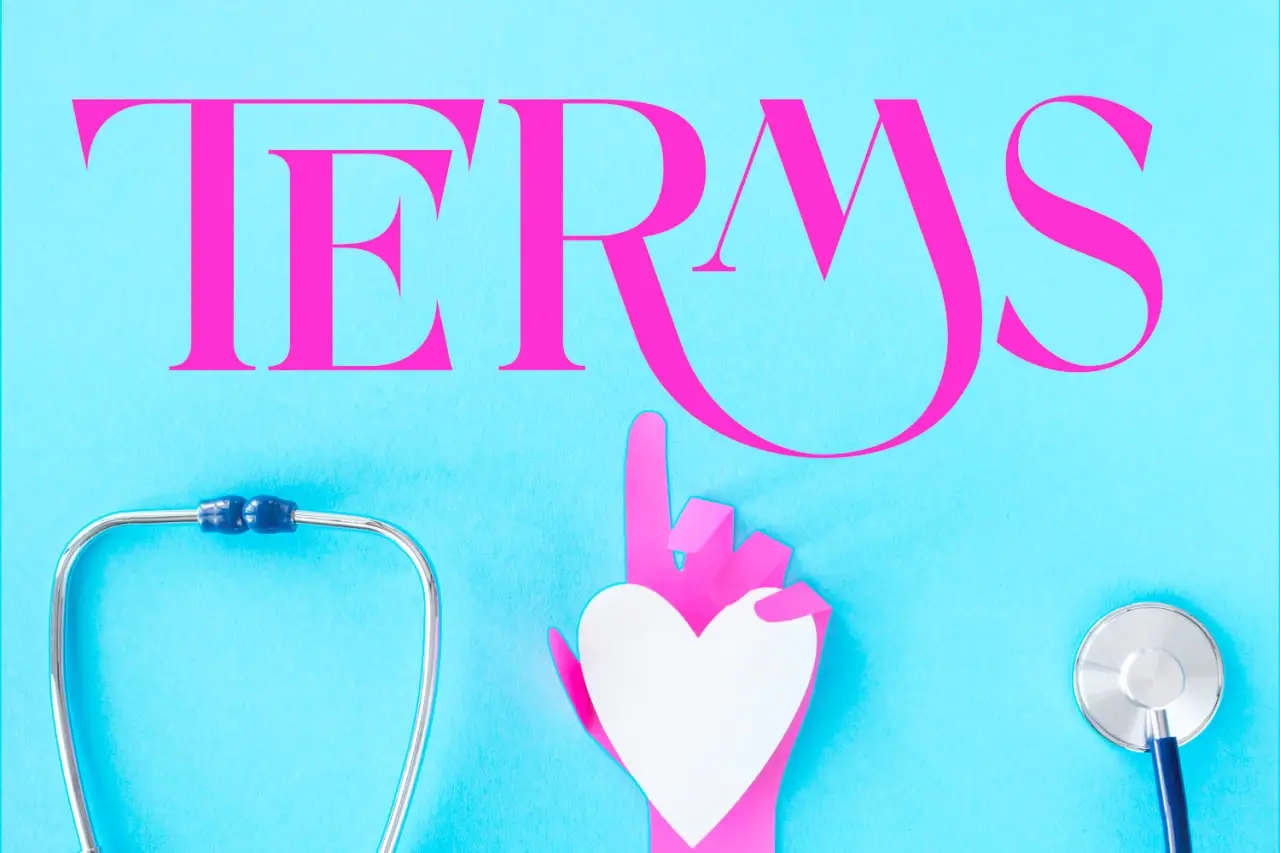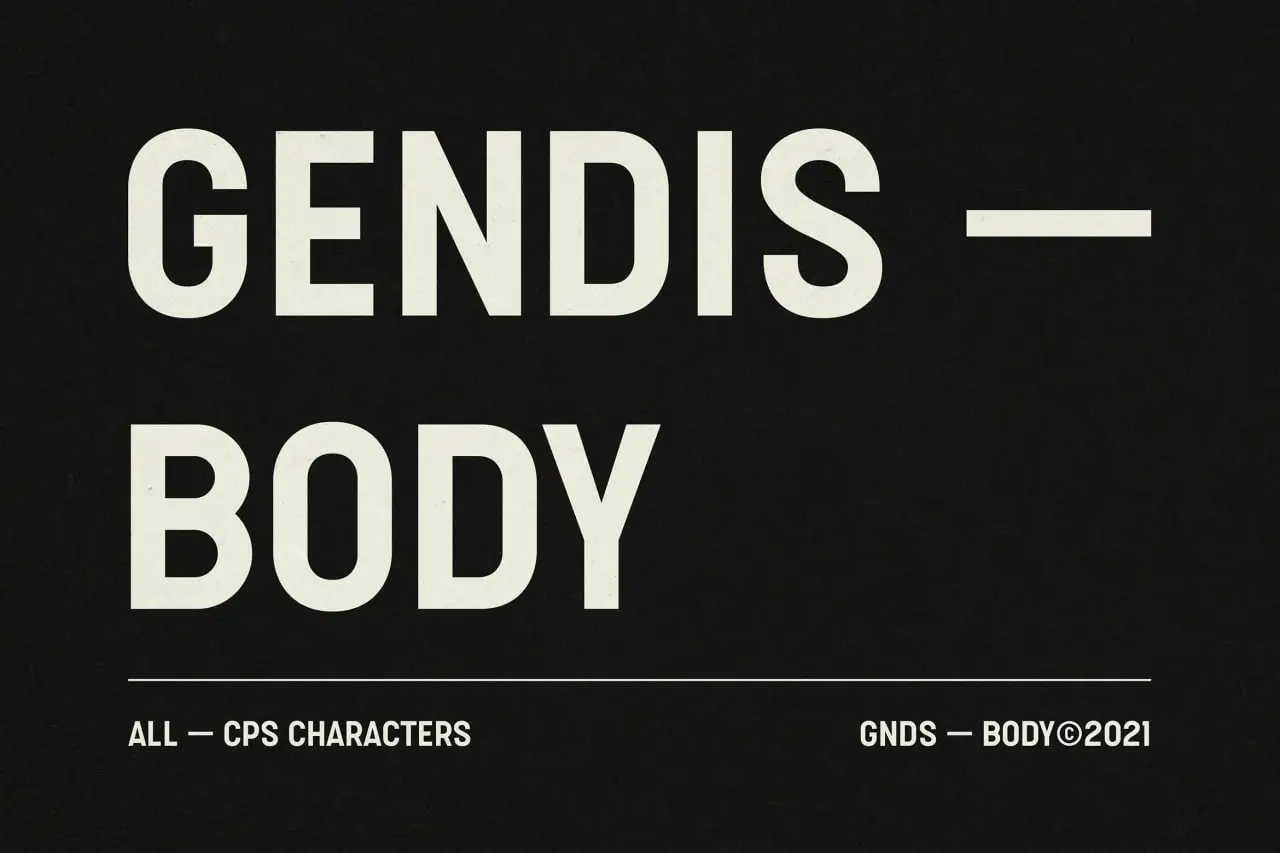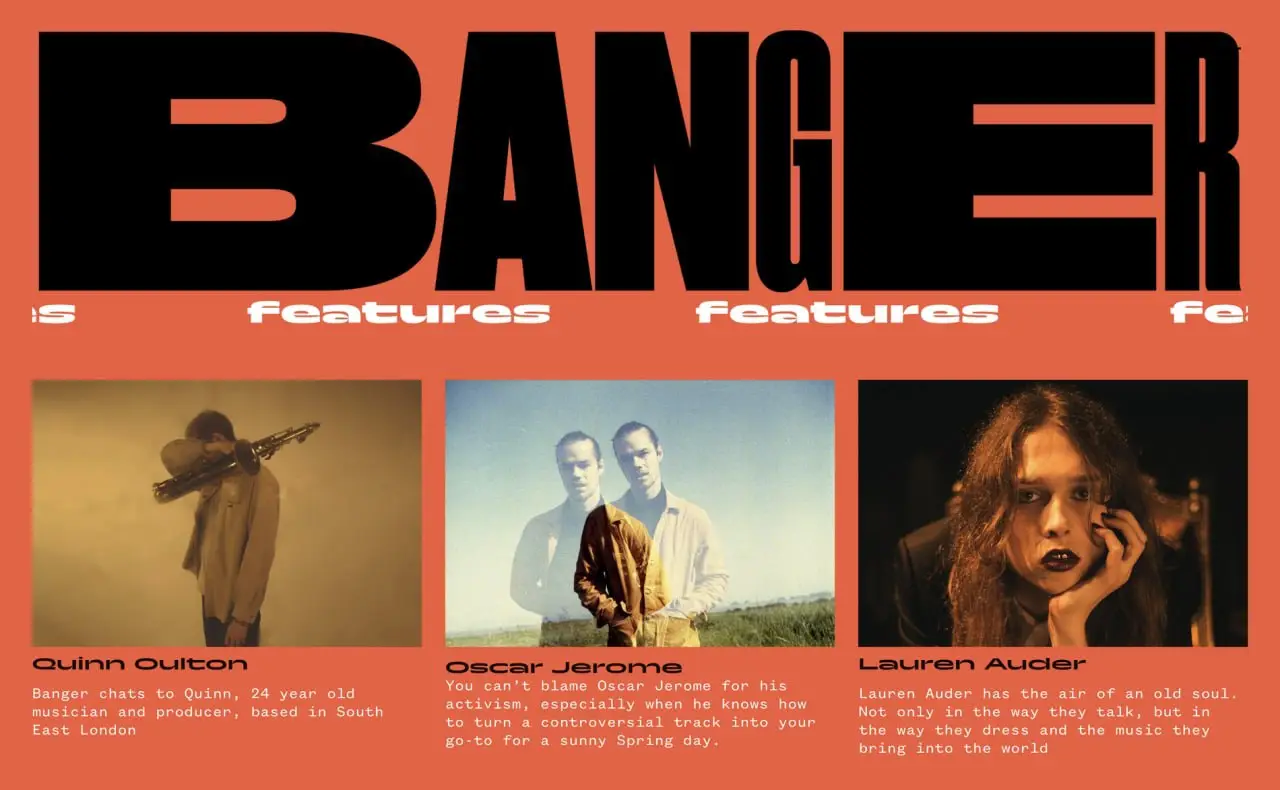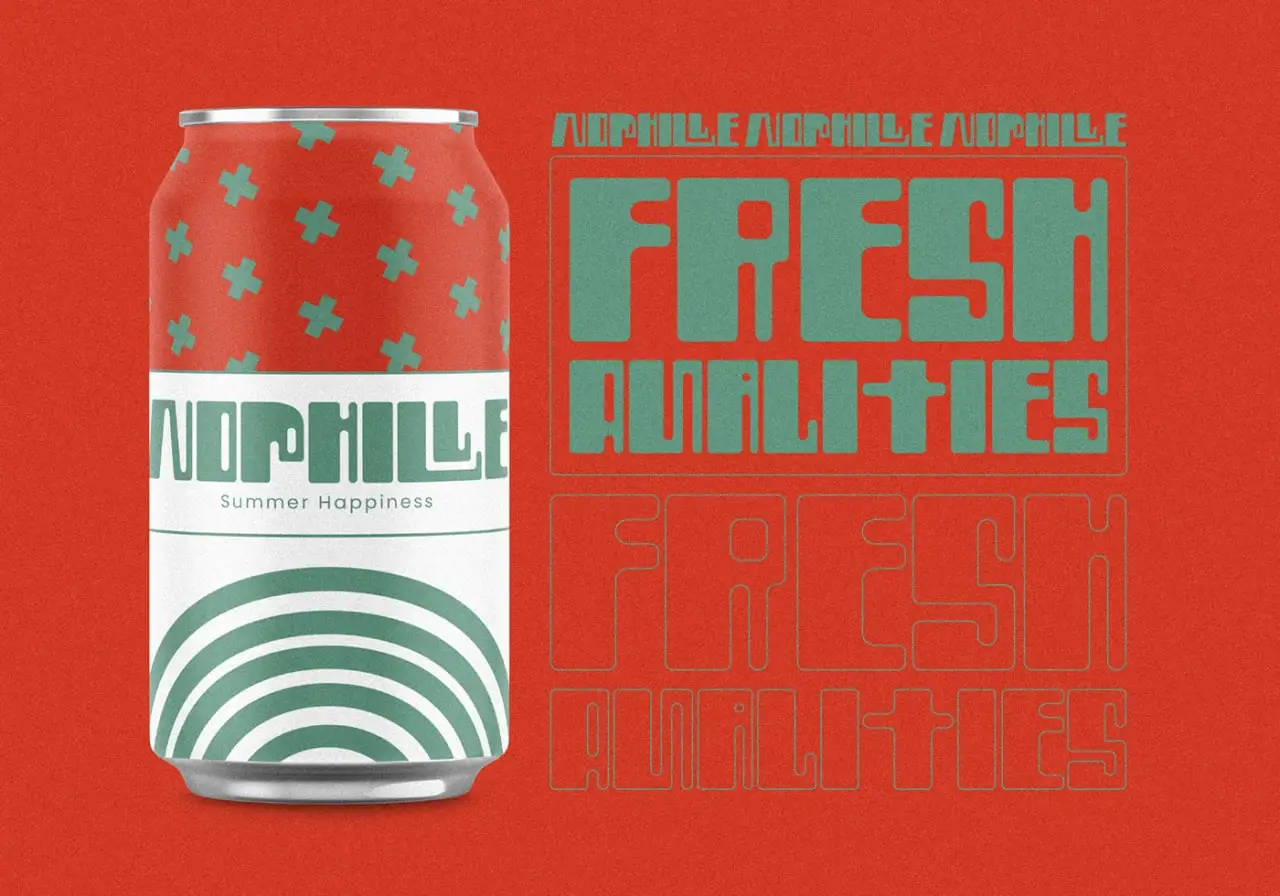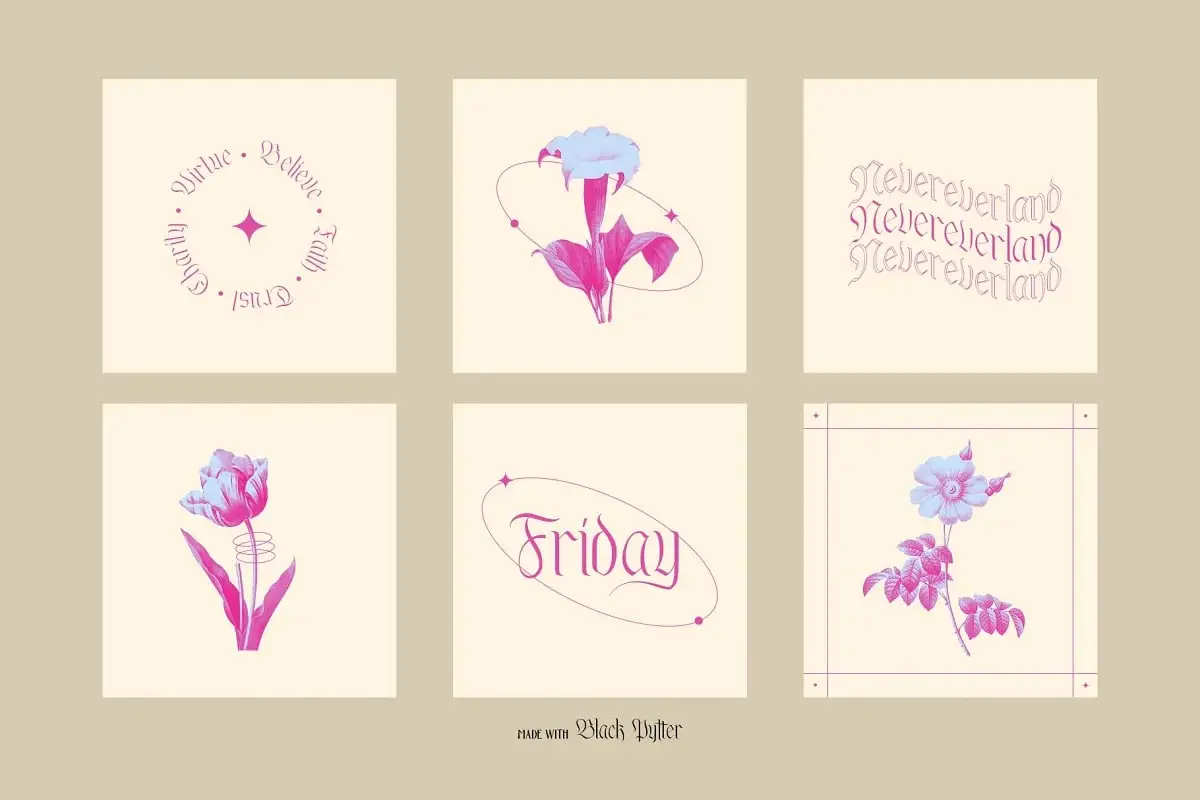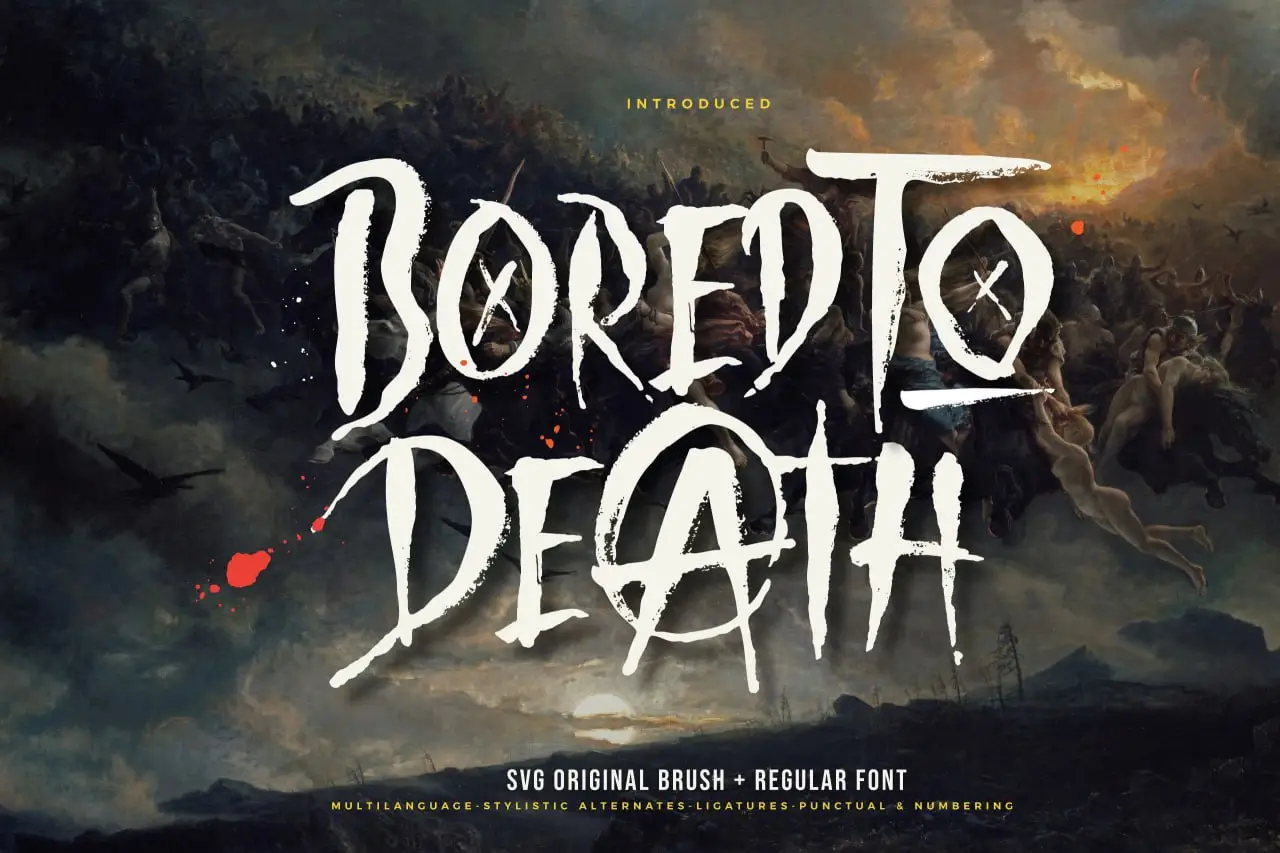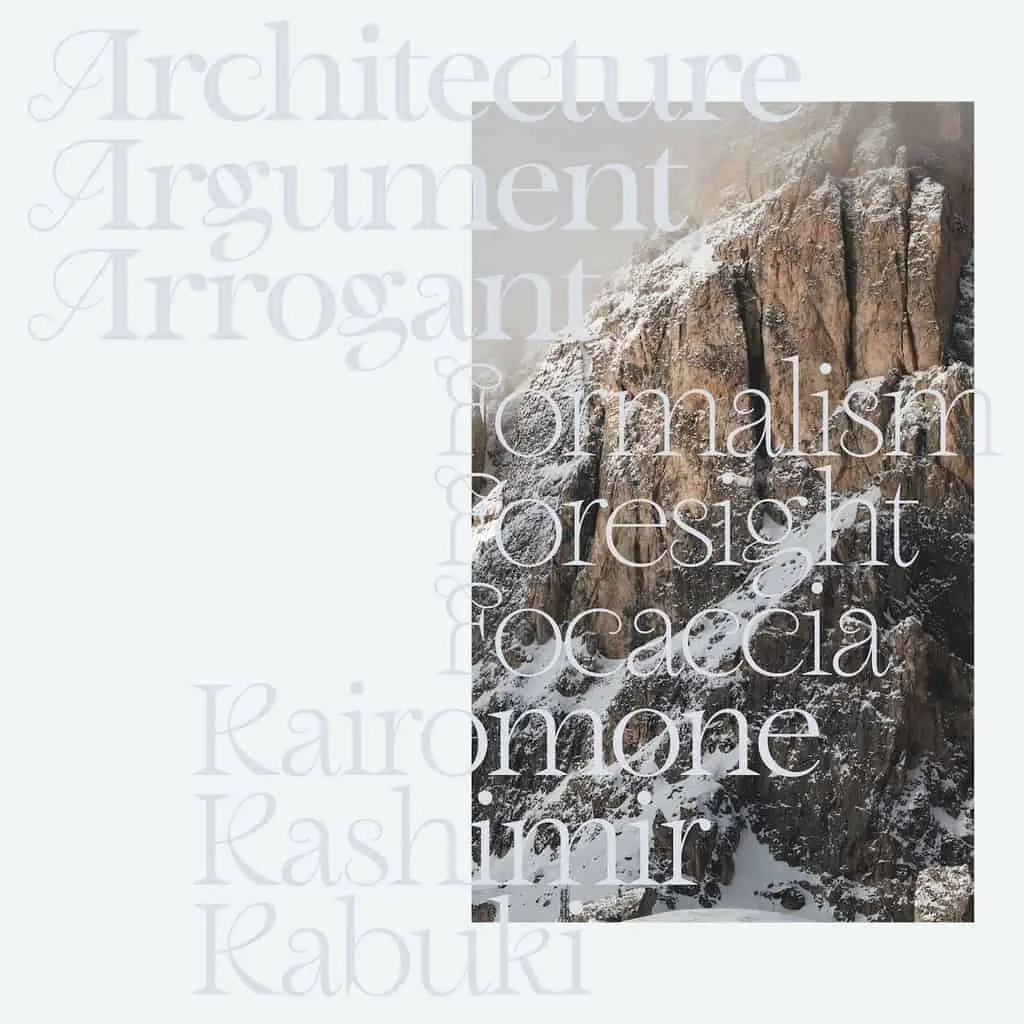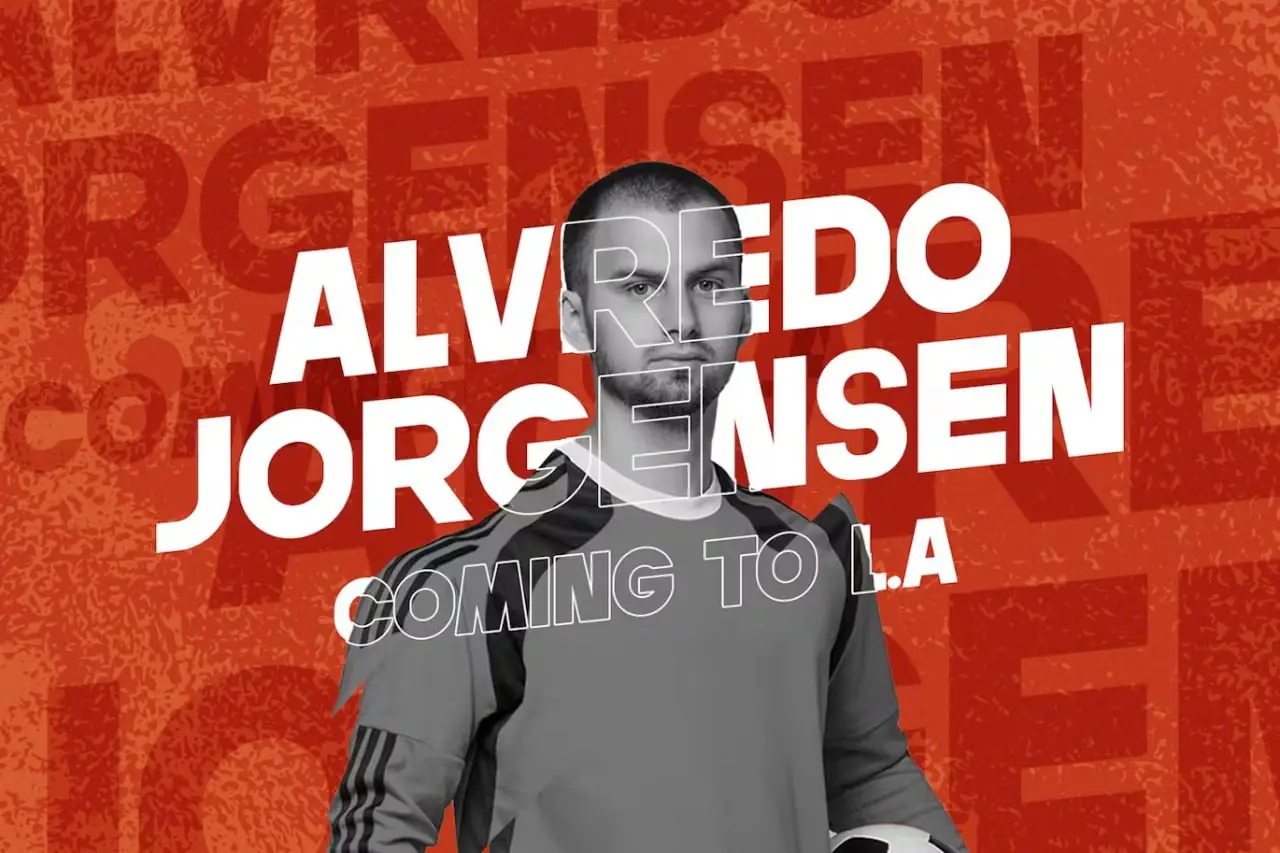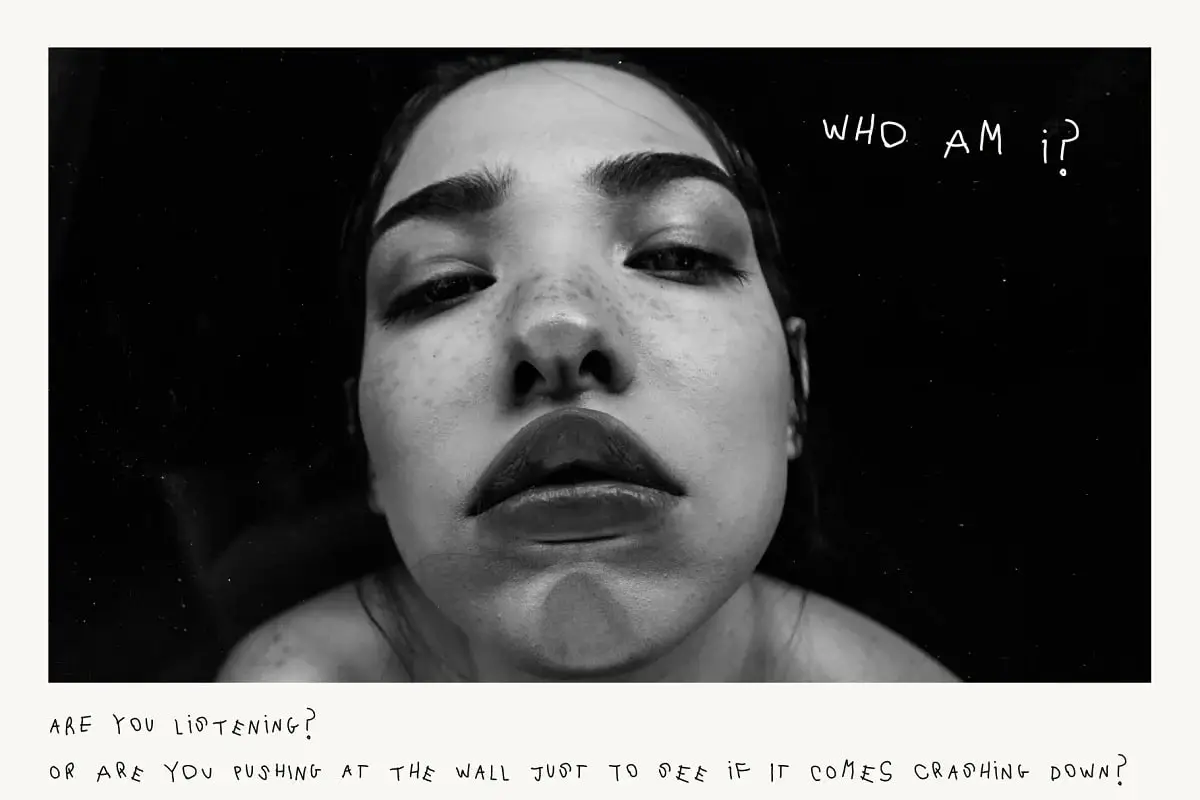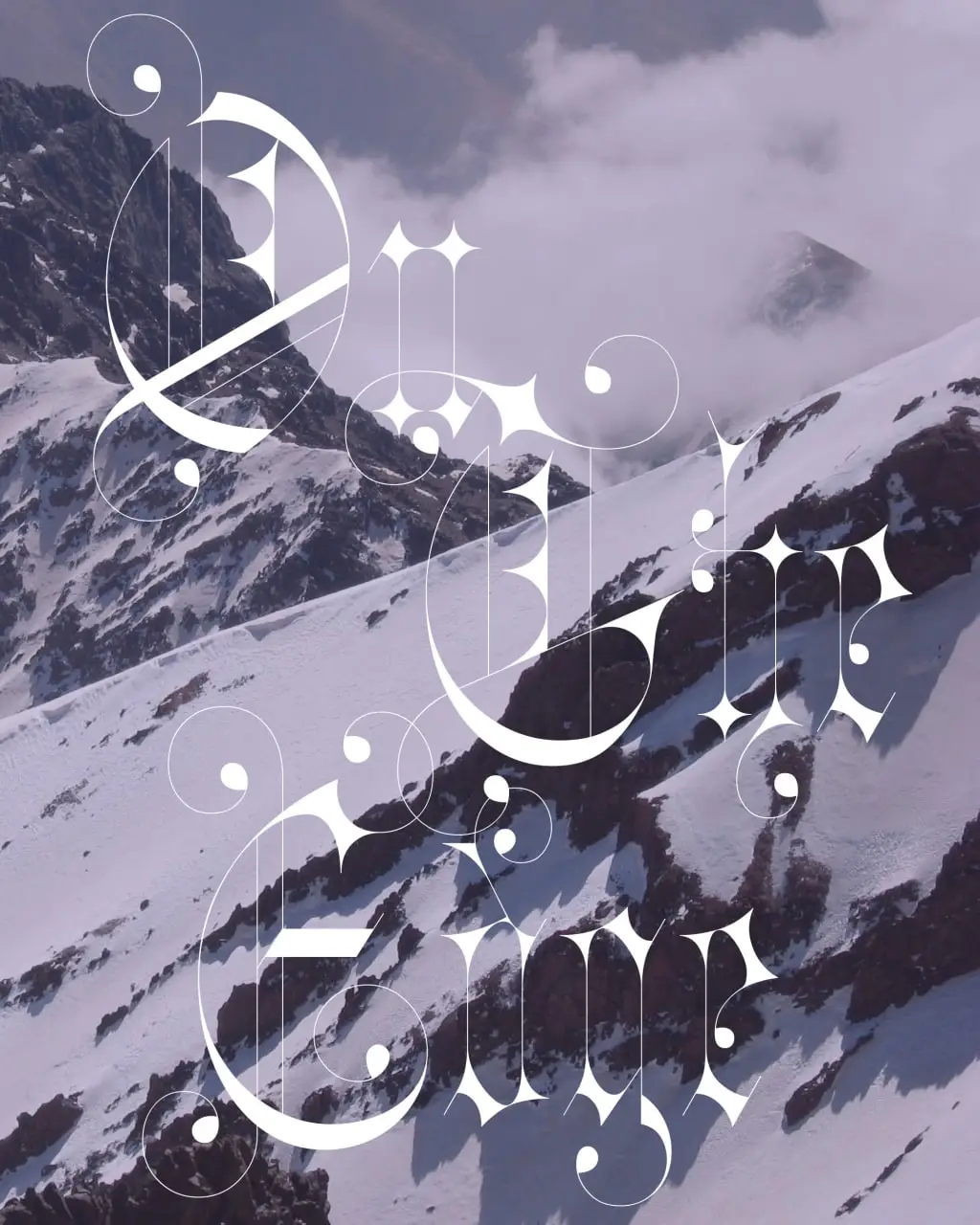
From quirky display fonts to ultra-modern typefaces and stunning design assets, this drop has something for everyone. Whether you’re crafting a killer logo, designing a sleek website, or just sprucing up your socials, these gems will make your work pop like never before. Let’s explore the top 20 picks that are about to revolutionize your design workflow! 🔥
Ephidona
Ephidona is your ultimate Swiss Army knife for creative projects! 🛠️ Whether it’s for branding, marketing, or personal art, this high-res beauty is super easy to customize and will make your visuals scream professionalism. ✨
Bro By Pavel Gridasov
Say “Bro” to your new favorite design asset! 🙌 This file is packed with high-quality details and multiple formats, making it a breeze to use on your website, social media, or even print materials. It’s the vibe your toolkit needs!
Dr-Spira Display (C) Daniel Reed
Get ready to turn heads with this bold, geometric stunner! 🧬 It’s a display font that balances sharp lines and elegant curves perfectly. Multiple weights mean you can go from heavy and dramatic to light and airy in a click. Perfect for headlines! 📰
David Jonathan Ross-Clavichord
For the lovers of vintage elegance! 🎹 This asset is like a musical masterpiece for your designs, inspired by classic clavichords. It’s high-res and dripping with historical charm—perfect for adding a touch of old-world class to modern projects. 🌿
Cactus Jack Font
Need a font that’s bold, playful, and totally on-trend? 🌵 Cactus Jack delivers with styles ranging from Light to Bold, and formats like OTF, TTF, and WOFF. It’s a desert storm of awesomeness for your branding! ☀️
Black Pytter Typeface
Make a statement that can’t be ignored! 🖤 Black Pytter is bold, modern, and full of character. It comes in multiple weights and supports snazzy uppercase and lowercase letters. Perfect for logos that demand attention.
Bouk Ra-Hanol V
This one is a visual powerhouse! 💪 Bouk Ra-Hanol V offers high-res files that are super easy to customize. It blends style and functionality seamlessly, making your workflow smoother and your designs way cooler. 🚀
Bored To Death Font By Ramandhani Nugraha-Fortunes Co
This font is anything but boring! 🕺 It’s playful, edgy, and full of personality. Perfect for display and decorative uses, it brings a unique flair to any project that needs a punch of attitude.
Bitto Font
Clean, modern, and super versatile! 🧼 Bitto offers multiple weights and both serif and sans-serif options. It’s incredibly legible at any size, making it a dream for both digital screens and print projects.
Buleten-Modern Sans Sports Font
Score big with your designs! ⚽ This sleek, modern sans-serif font is tailor-made for sports branding, jerseys, and athletic merchandise. It’s fast, clean, and commands attention.
Boogy Brut By © Bureau Brut & Julien Priez [Otfx 9]
This one is pure fun and attitude! 🕺 Boogy Brut is bold, playful, and impossible to ignore. Designed by Bureau Brut and Julien Priez, it’s perfect for quirky logos and standout branding.
Bigilla Font
Bigilla is the life of the party! 🎉 With unique curves and multiple weights, this stylish modern font is ideal for everything from branding to digital media. It comes with both uppercase and lowercase, so the creative possibilities are endless.
Bubble Font Orvil By That That Creative
Get bubbly with it! 🫧 This whimsical typeface by That That Creative has the cutest rounded edges. It’s perfect for children’s books, party invites, or any project that needs a light-hearted touch.
Bumsy Font
Bumsy is the friendliest font around! 🤗 With its rounded edges and cheerful vibe, it’s a hit for logos, web design, and prints. Available in Light, Regular, and Bold to fit your mood.
Anthonyjjames-Jitzu Typefamily
This typefamily is a whole wardrobe of style! 👔 From sleek sans-serifs to expressive display fonts, it’s got a weight for every occasion. Modern aesthetics that are super flexible for any project.
Bangers Magazine By Marc Rouault
It’s a full-on magazine template that looks fresh off the press! 📰 Fully customizable, high-res, and print-ready, it’s a game-changer for anyone creating editorial layouts.
It’s a curated drop of premium digital design assets, fonts, and typefaces that are perfect for graphic designers, digital artists, and branding pros. This collection is packed with versatile tools to elevate your creative projects instantly. 🎨